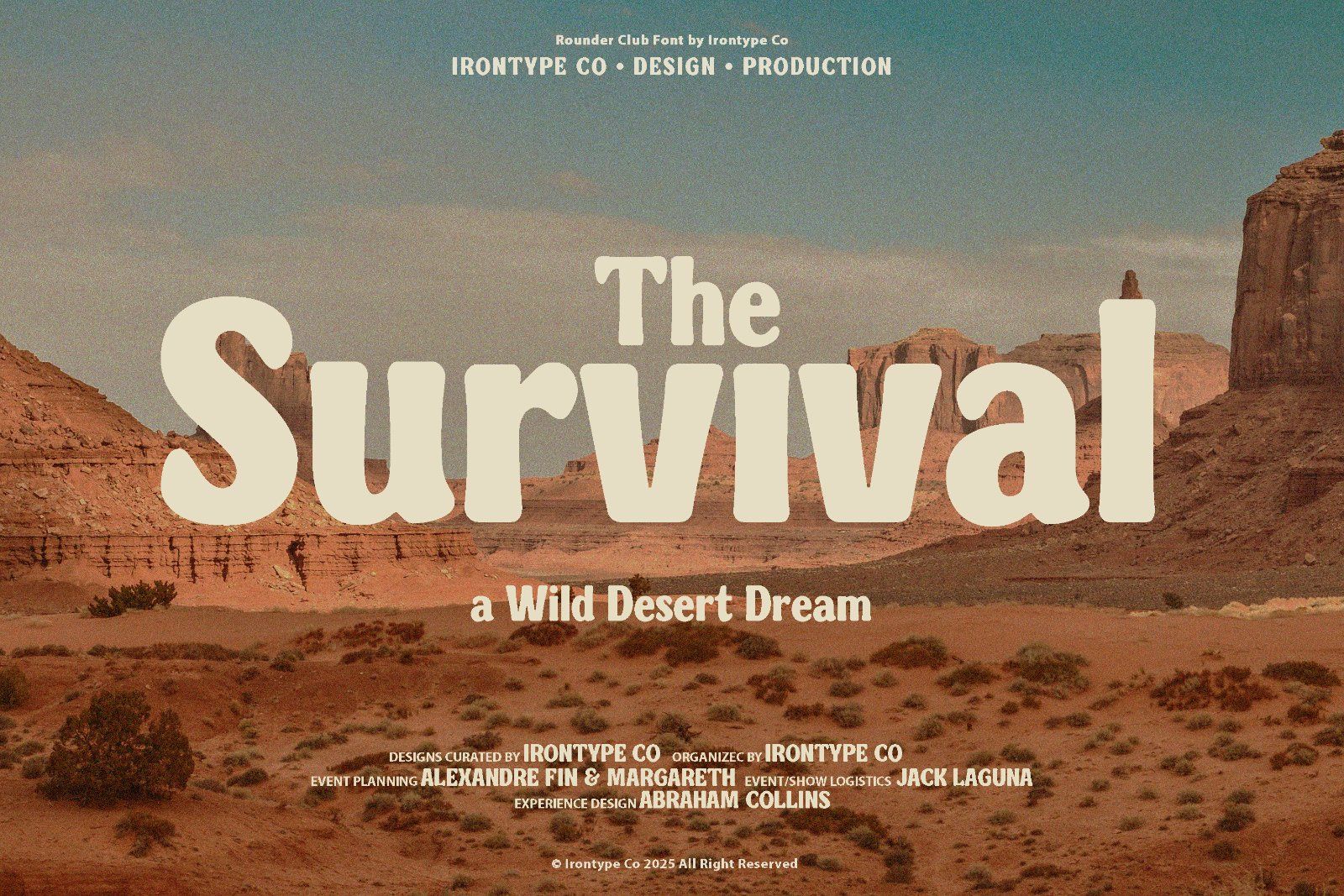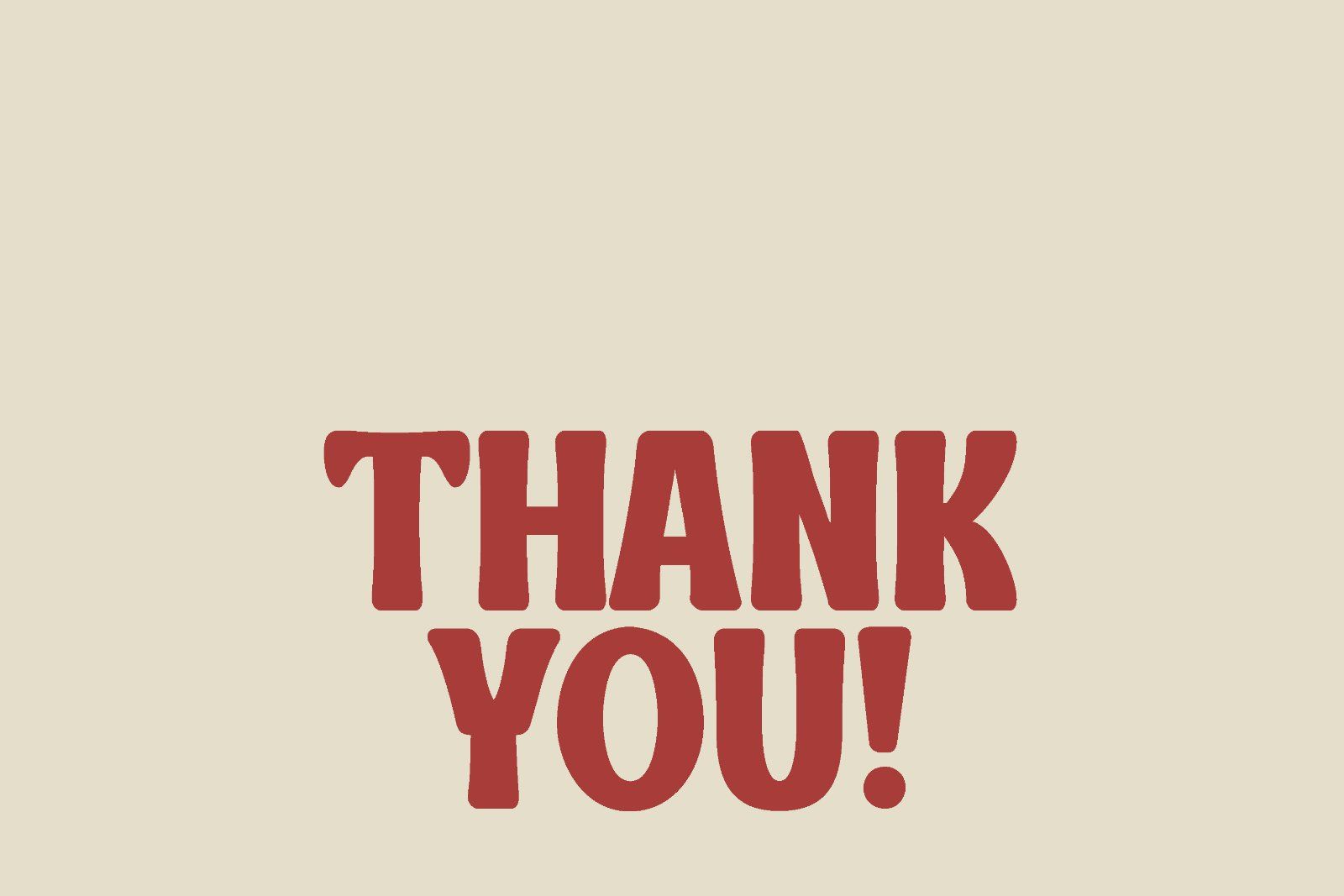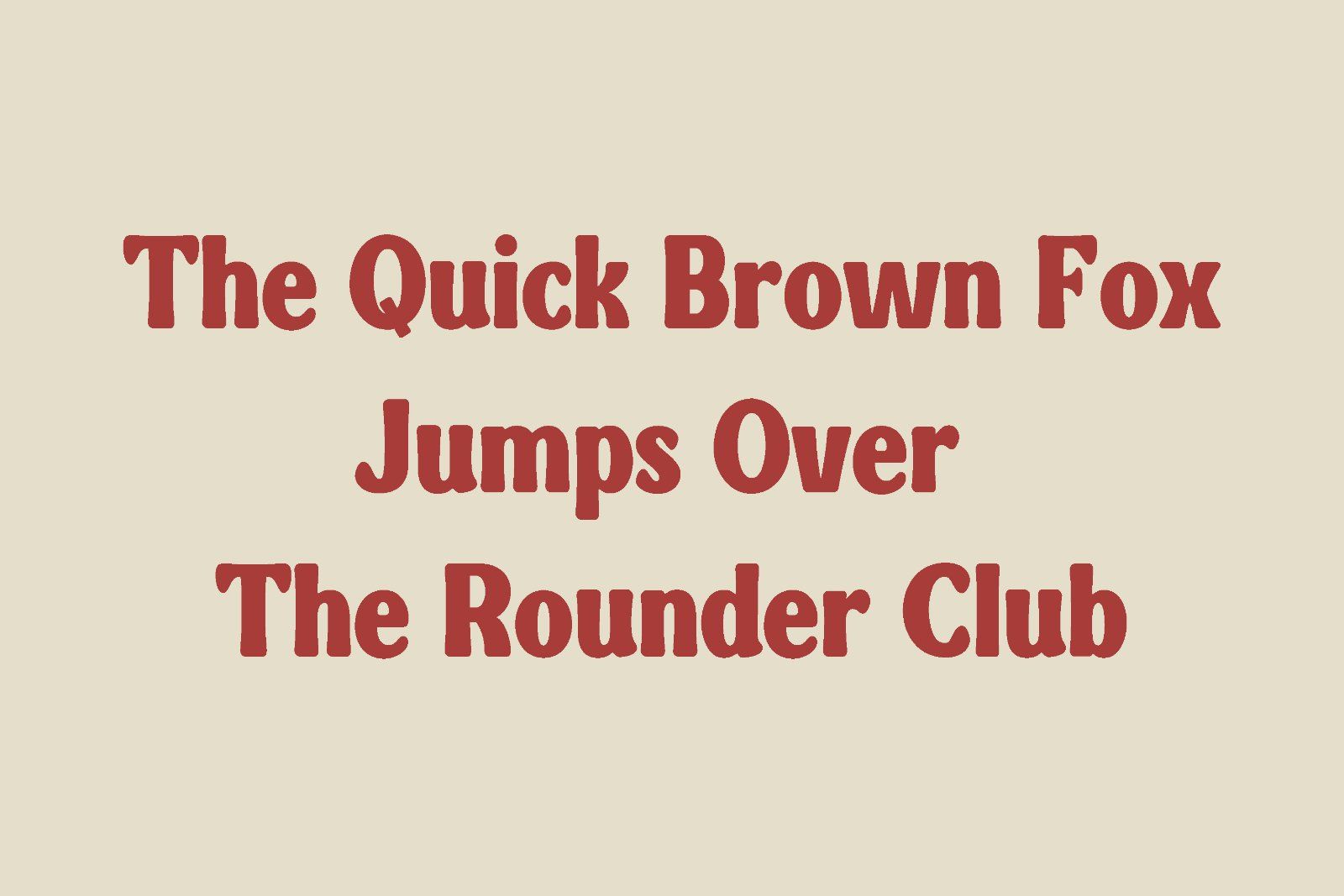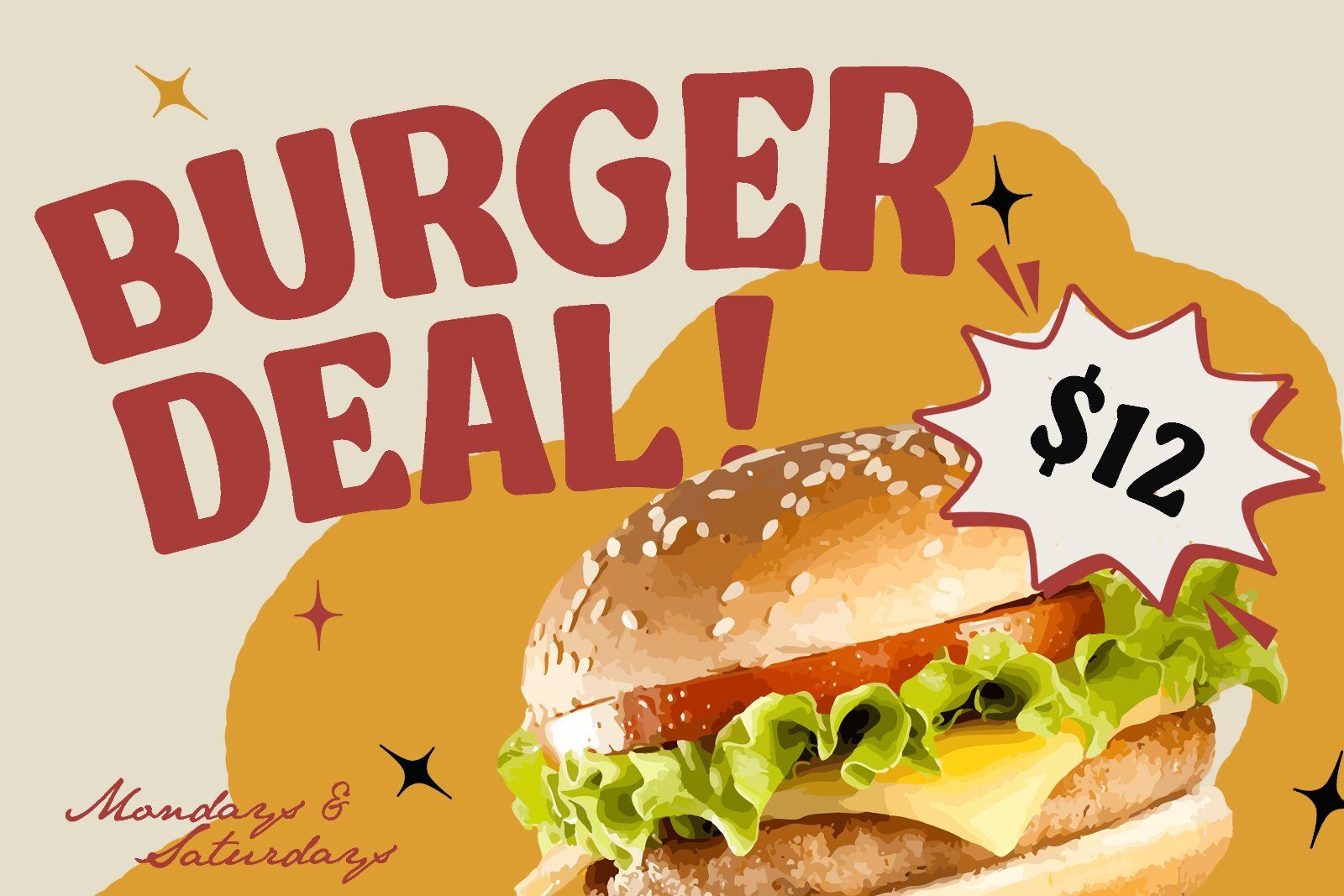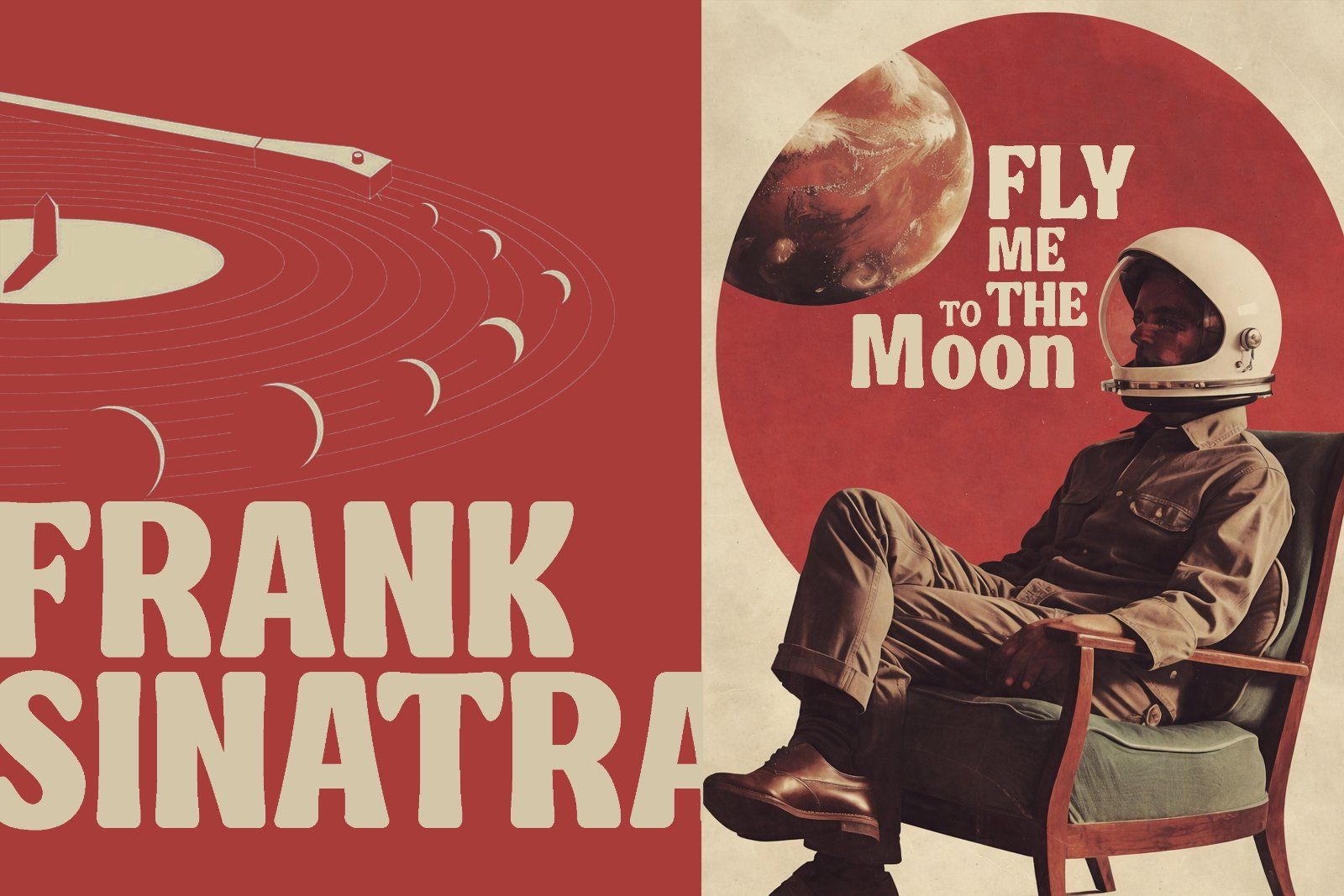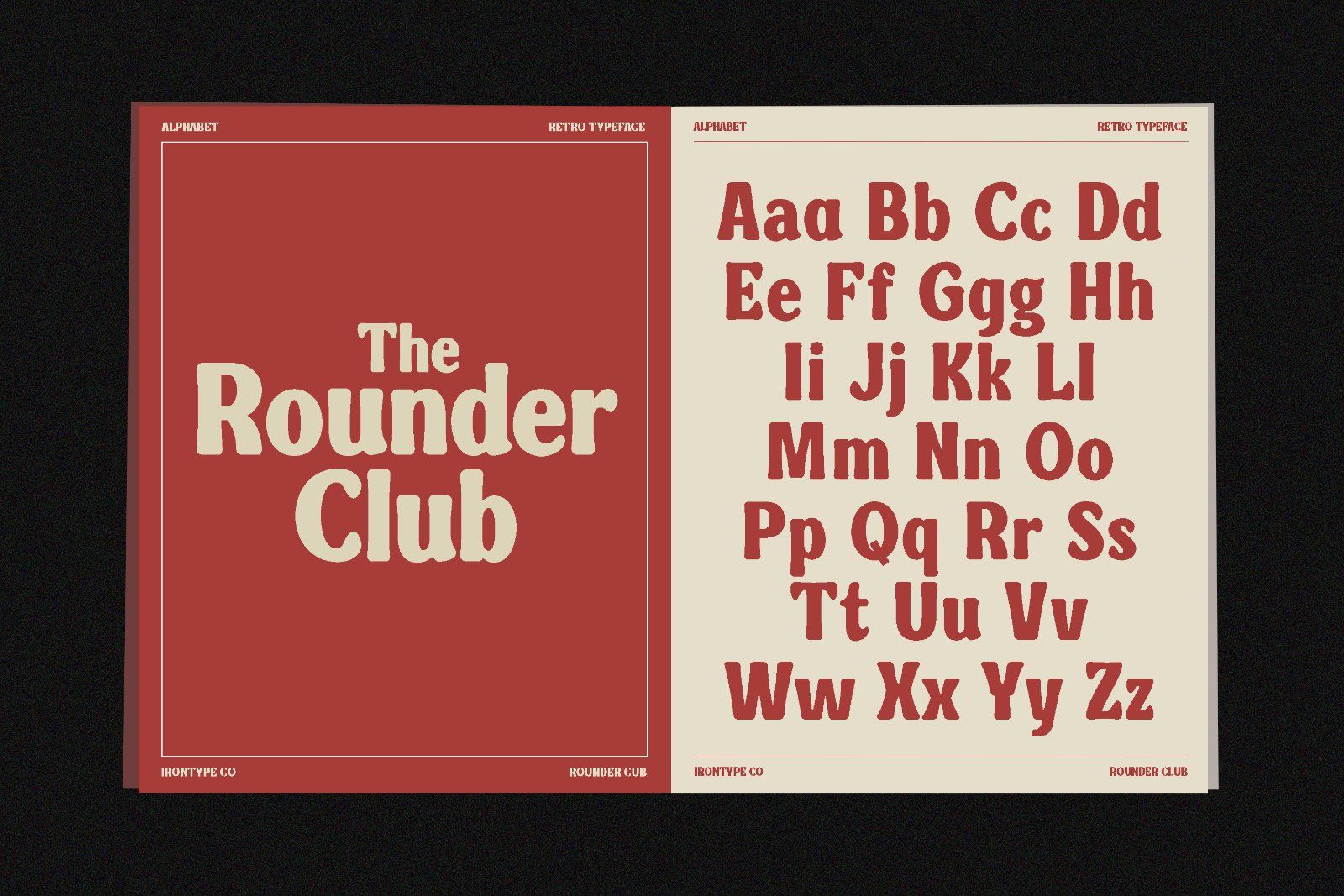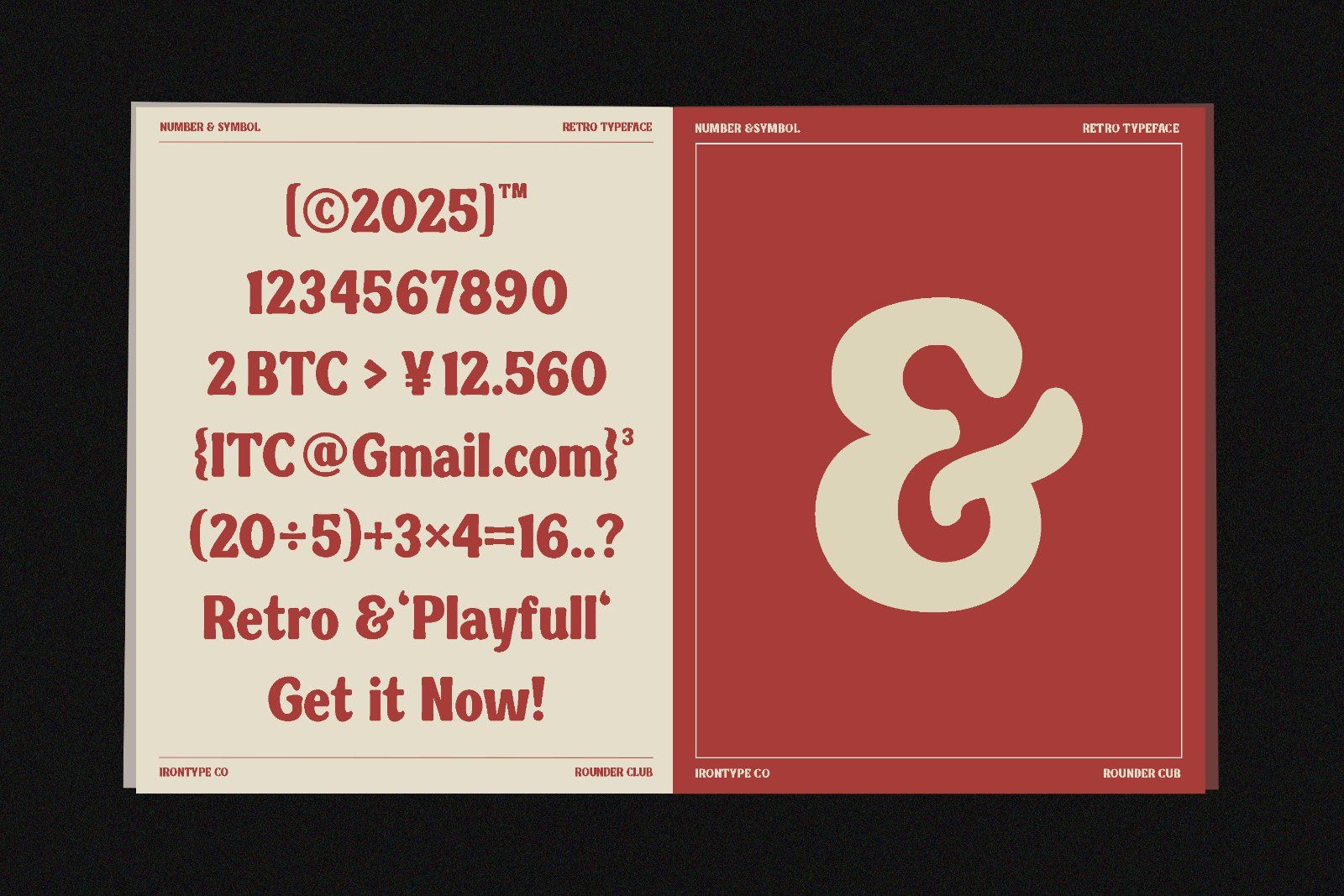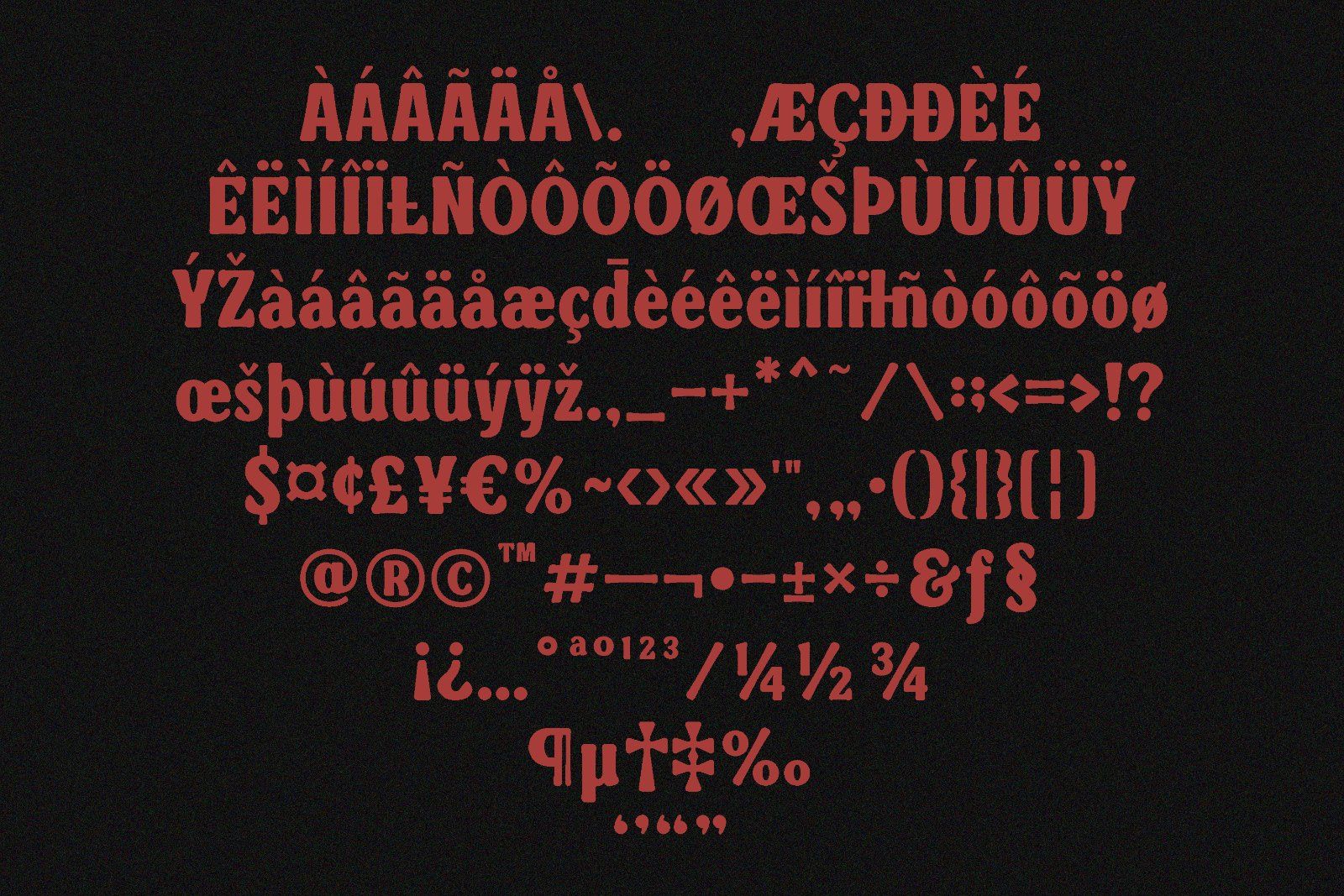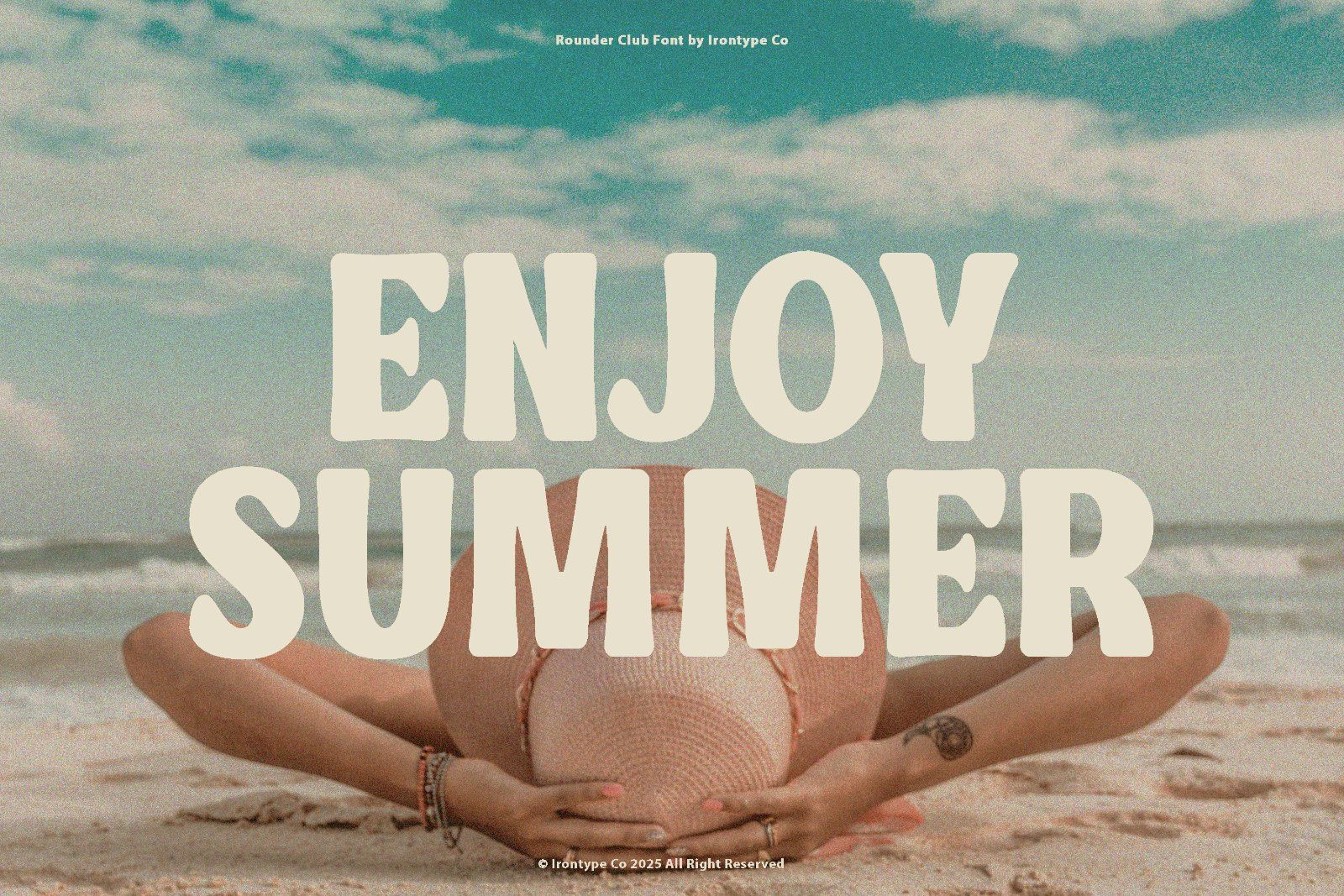
Rounder Club is a bold retro display typeface inspired by classic signage and playful typography from the 70s–90s. With thick strokes, rounded corners, and confident letterforms, it delivers a strong visual impact while staying friendly and approachable. Designed for large sizes, Rounder Club feels nostalgic yet timeless—perfect for bold, fun, and memorable designs. Rounder Club isn’t just a font—it’s a statement. Loud without being aggressive, playful without losing structure.
• Uppercase & Lowercase Letters
• Numbers & Punctuation
• Multi Lingual Support
Best Used For:
• Posters & Event Flyers
• Headlines & Titles
• Logo & Brand Identity (retro, lifestyle, food, fashion, music)
• Album Covers & Merchandise
• Packaging Design (snacks, beverages, streetwear, vintage brands)
• Social Media Graphics & Advertising
• Editorial Highlights & Magazine Covers